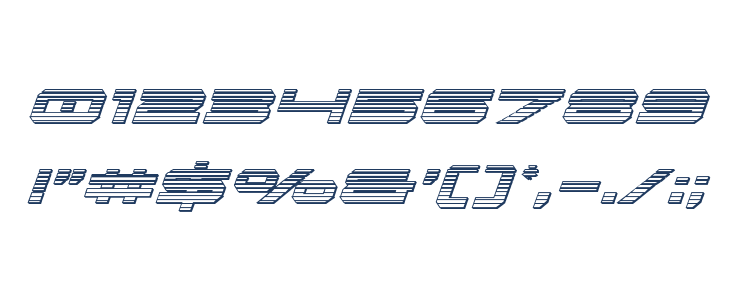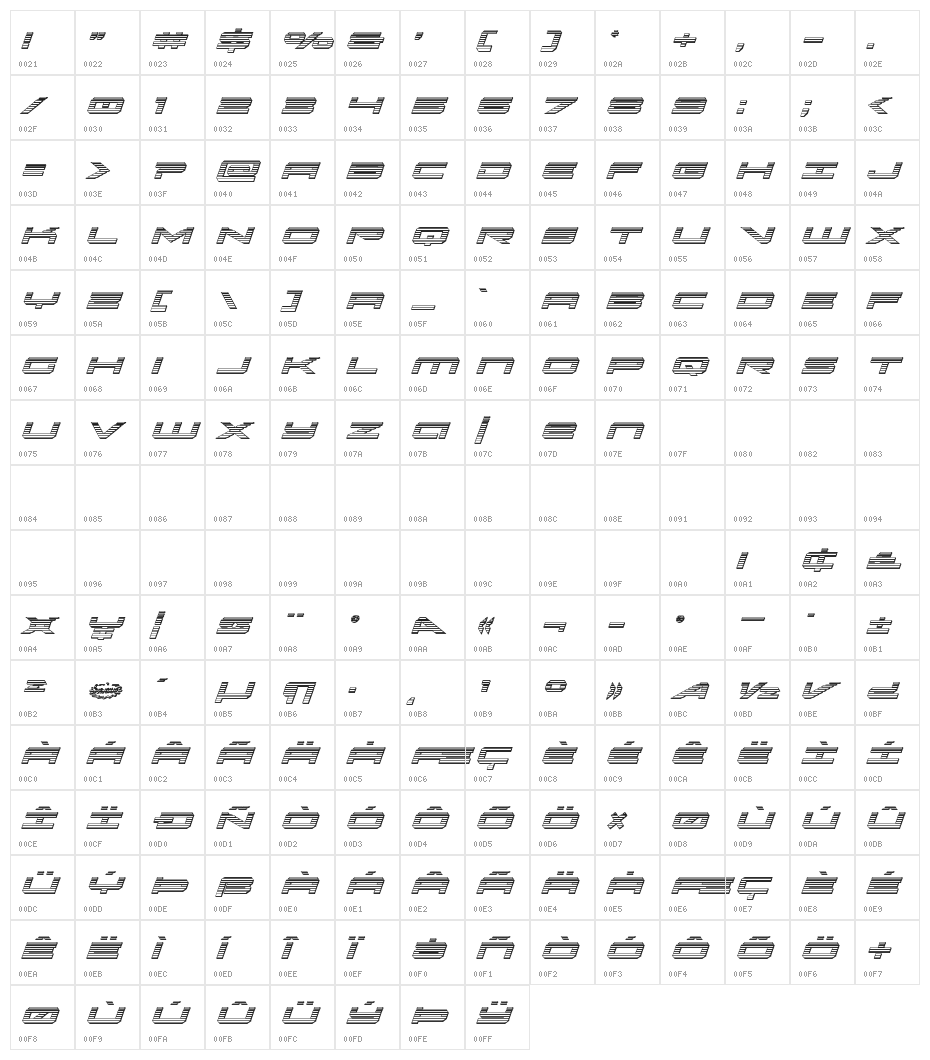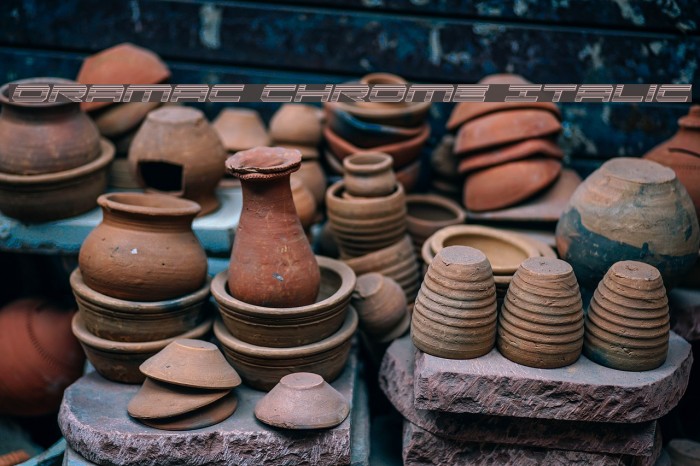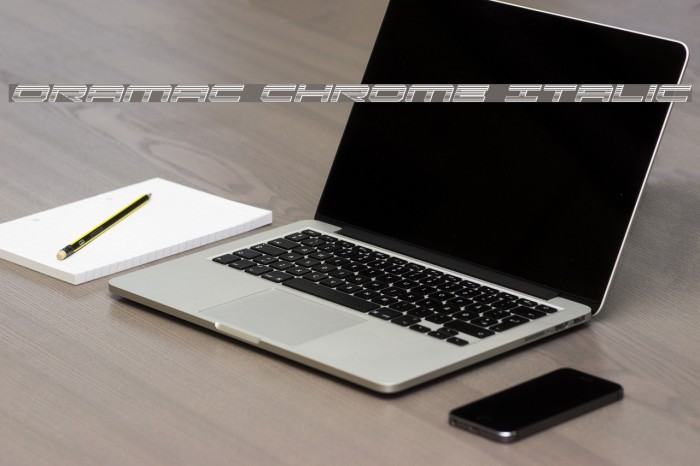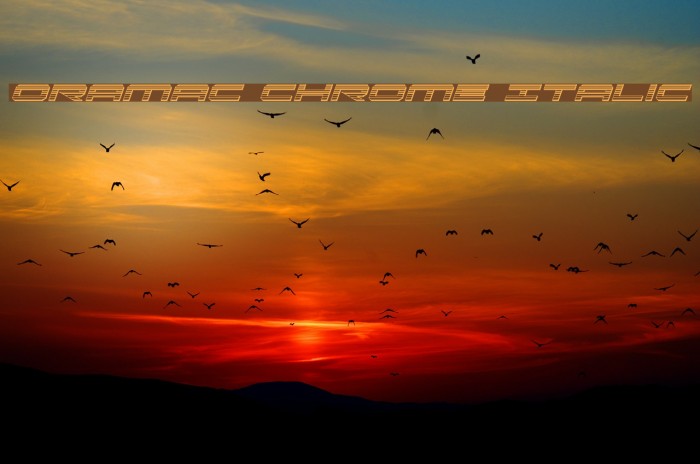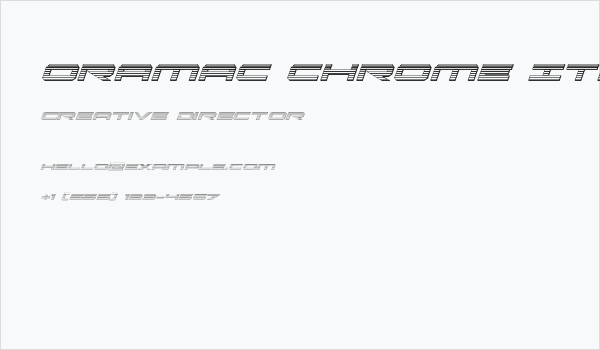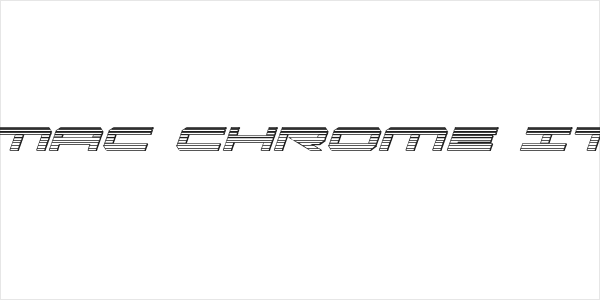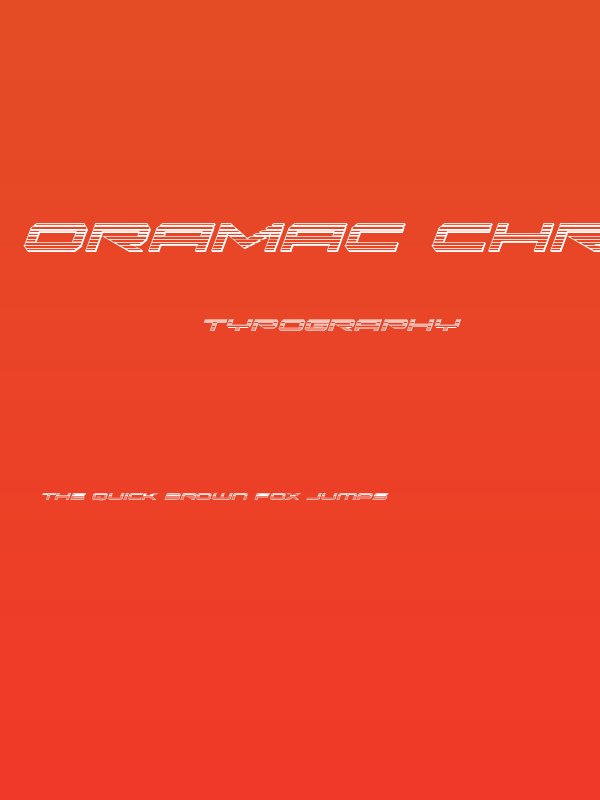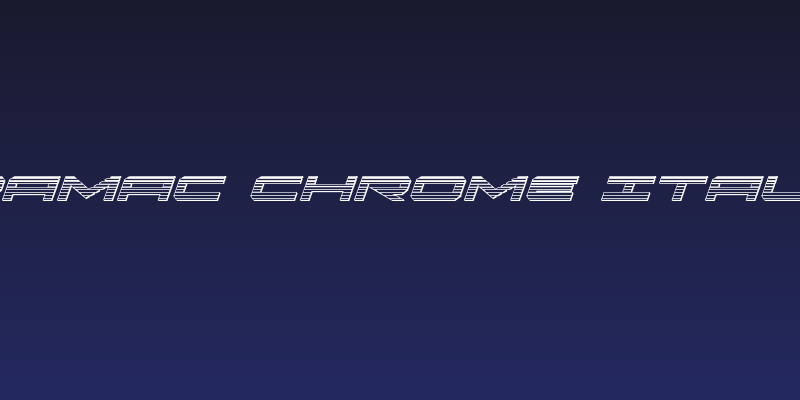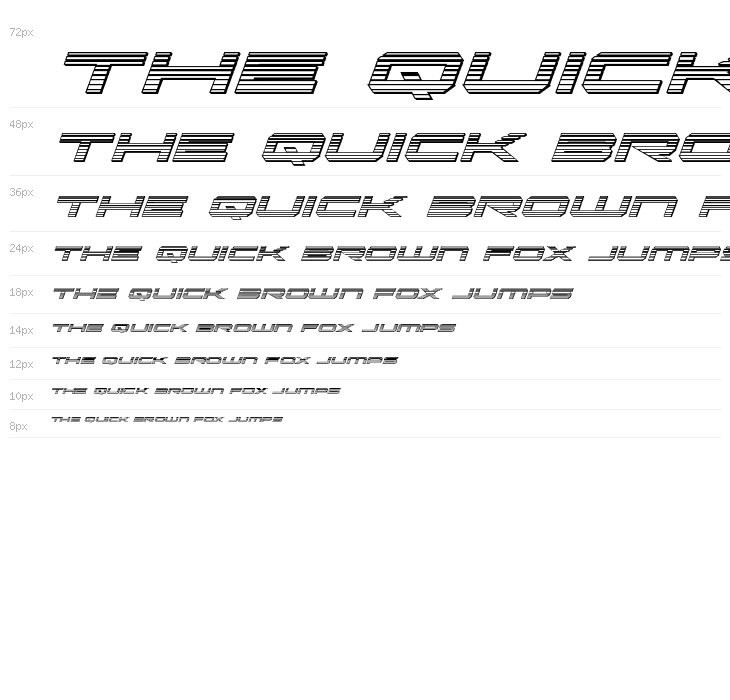
Oramac Chrome Italic Font
Oramac Chrome Italic Description
This font features a futuristic and dynamic design with a distinct chrome-like appearance. The characters are composed of multiple parallel lines, creating a sense of movement and speed. The italic slant adds to its modern and sleek aesthetic, making it ideal for projects that require a high-tech or sci-fi feel. The uppercase and lowercase letters maintain a consistent style, while the numerals and special characters integrate seamlessly with the overall design. The font's unique structure and visual appeal make it stand out in any application.
Proposed ProjectsIdeal for sci-fi movie posters, tech branding, video game titles, and futuristic event flyers.